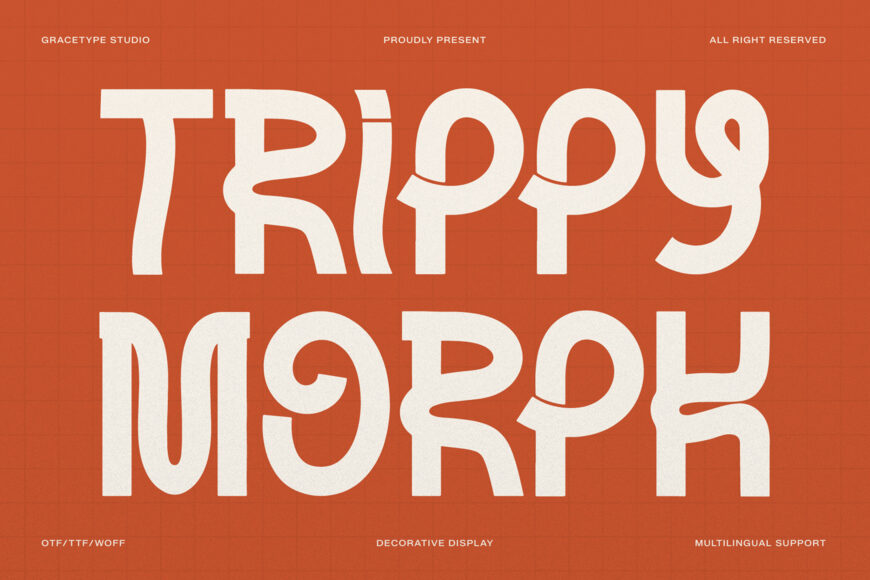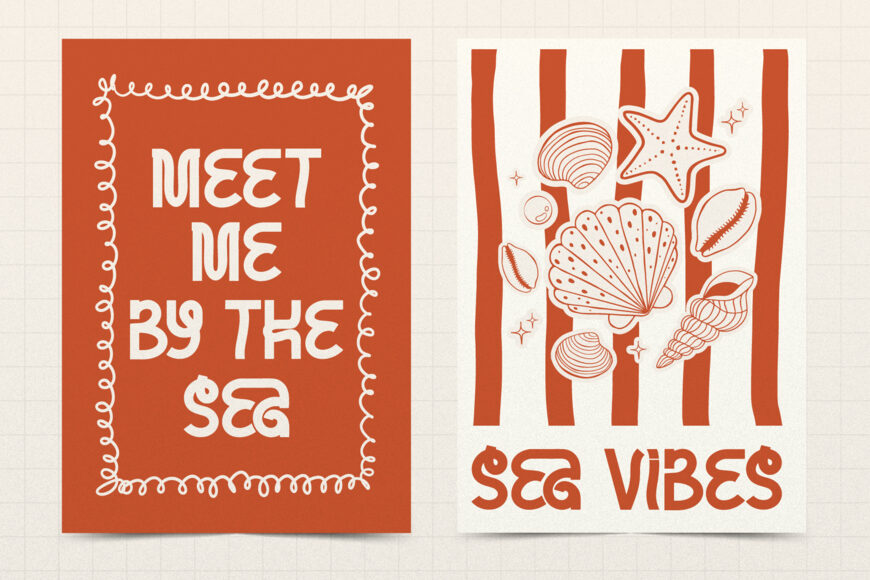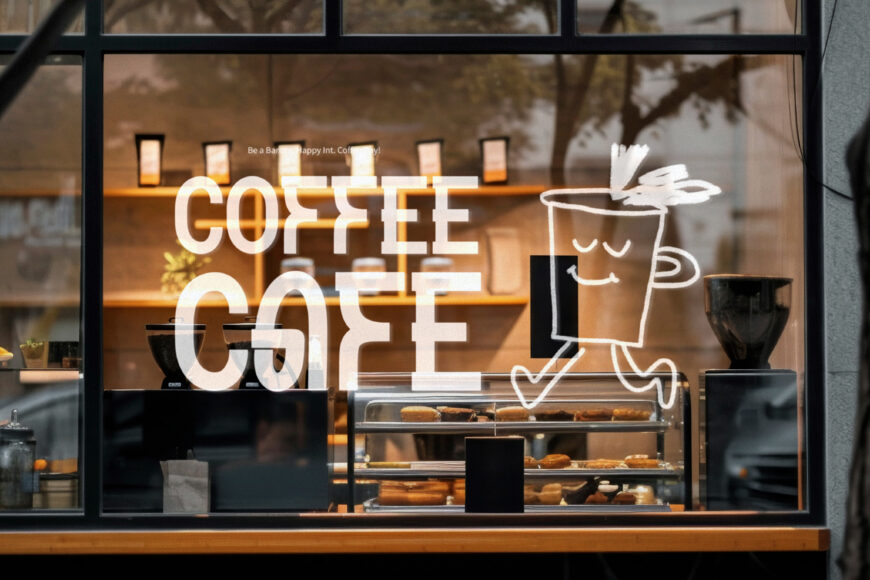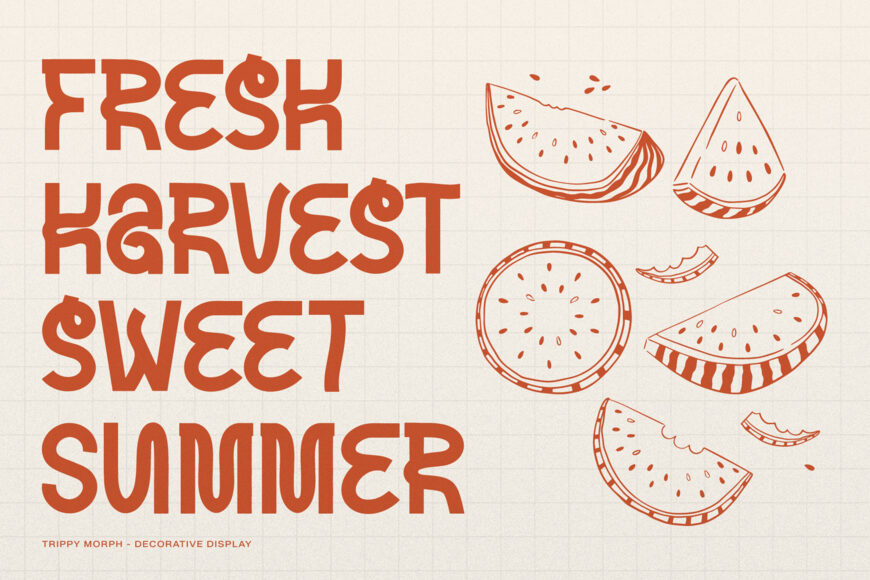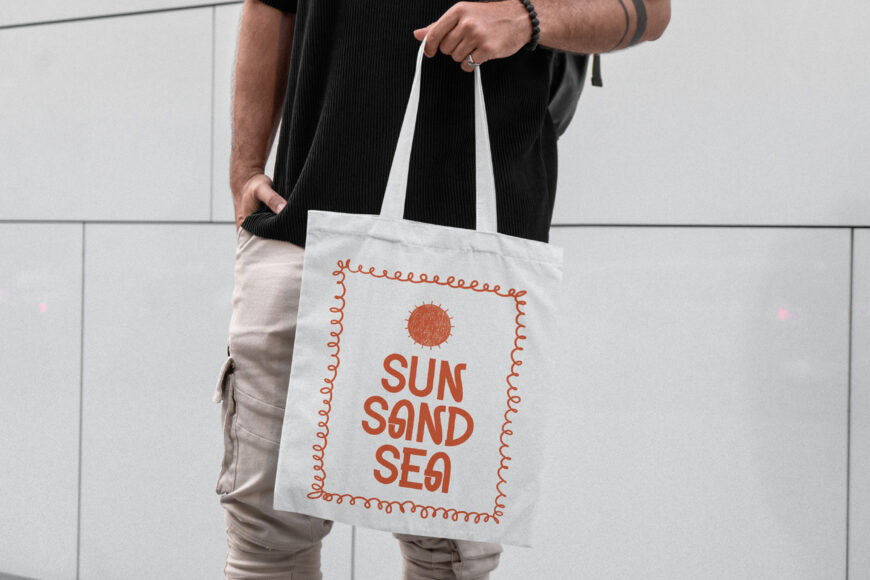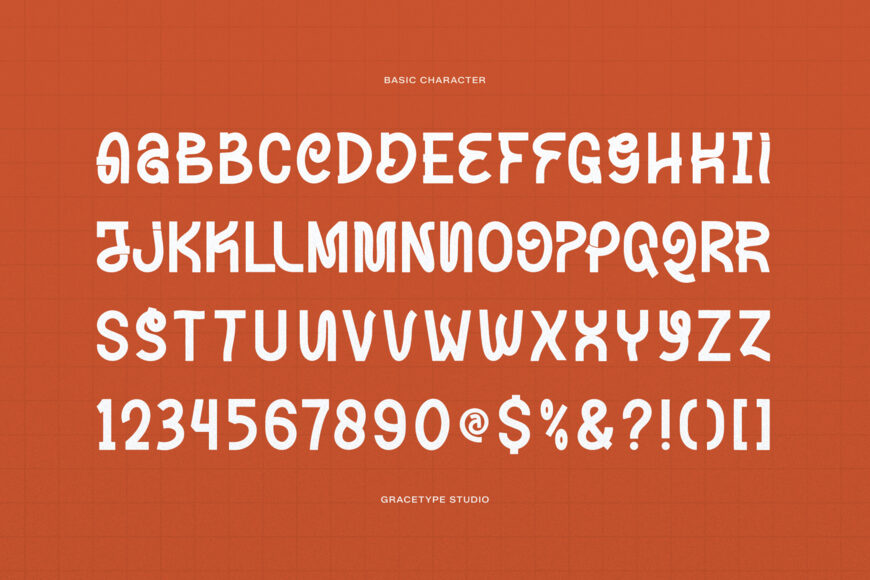
Trippy Morph Font
Unleash psychedelic 70s nostalgia, mind-bending liquid curves, and groovy modern flair with TRIPPY MORPH! Expertly crafted with fluid, melting strokes, wavy stem transitions, and expressive morphing letterforms, this decorative display typeface instantly hypnotizes on any canvas.
Whether you’re creating retro music festival posters, psychedelic album art, vintage streetwear apparel, indie branding, craft beer packaging, sticker packs, or custom vinyl craft SVG cut files, TRIPPY MORPH warps your typography into an unforgettable visual experience!